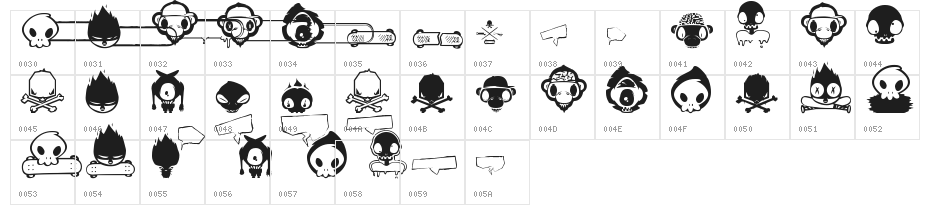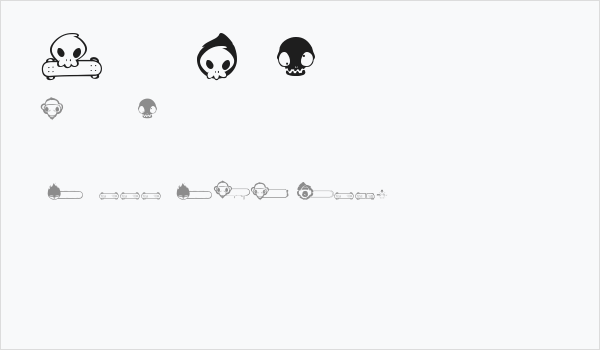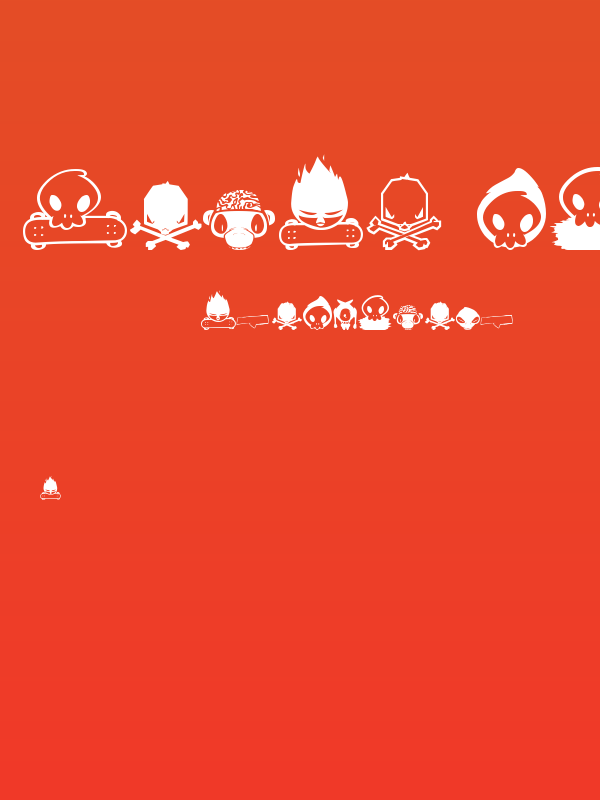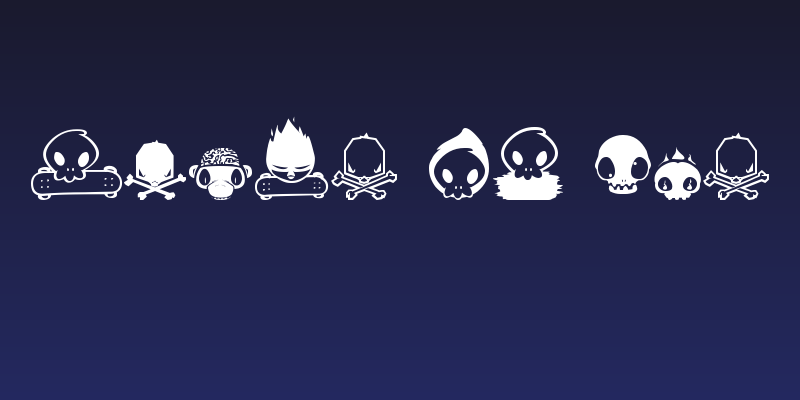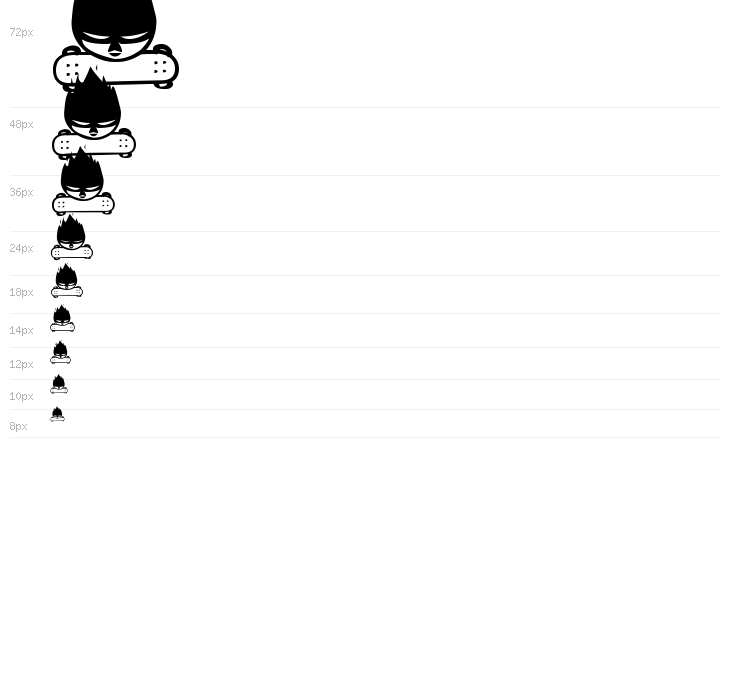
Skate Or Die Font
Skate Or Die Description
This is a decorative font featuring a series of unique and playful character illustrations. Each character is represented by a distinct graphic, often incorporating elements like skulls, flames, and cartoonish faces. The style is bold and eye-catching, with a strong emphasis on individuality and creativity. The characters are designed with thick lines and high contrast, making them stand out prominently. This font is ideal for projects that require a fun and edgy aesthetic, such as skateboarding or extreme sports themes.
| Overall Style | Playful, Edgy, Creative |
| Use Case | Logos, Posters, Branding |
| Proposed Projects | Ideal for skateboarding themes, extreme sports branding, posters, and youth-oriented designs. |